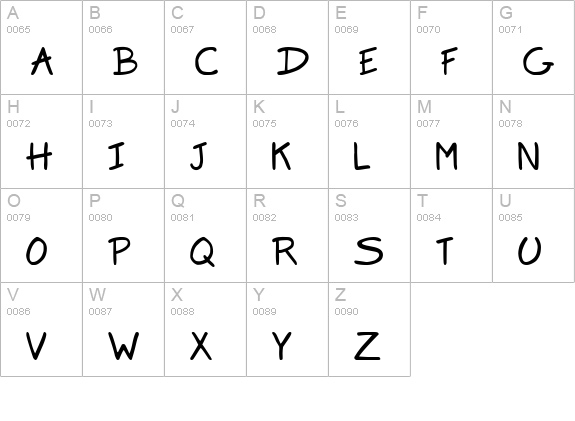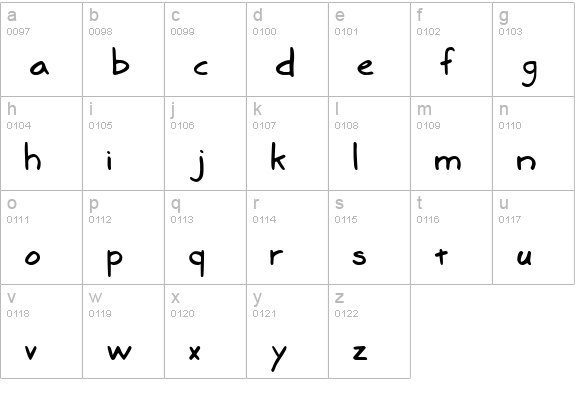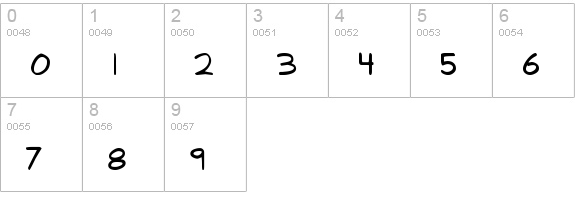
Marker SD Font Details
Marker SD is a unique and eye-catching font that adds a touch of creativity to any design project. With its bold and distinct strokes, this font is perfect for creating attention-grabbing titles, headlines, and logos. Whether you're designing a poster, a website, or even a T-shirt, Marker SD will make your text stand out and leave a lasting impression. What makes Marker SD even more appealing is the fact that it is completely free. That's right, you can freely download this font at FontsMarket.com, making it accessible to everyone, regardless of budget or design experience. This means that you can bring your creative ideas to life without any limitations or constraints. The versatility of Marker SD is another reason why it is a must-have font for any designer. It can be used in a variety of design projects, from playful and fun designs to more serious and professional ones. Its hand-drawn aesthetic adds a personal and authentic touch to your work, making it feel unique and one-of-a-kind. Not only does Marker SD offer a visually appealing design, but it also provides excellent legibility. Its clear and well-defined letters ensure that your message is easily readable, even from a distance. This makes it a great choice for signage, banners, and any other design that requires readability and impact. So, if you're looking for a free font that combines creativity, versatility, and legibility, Marker SD is the perfect choice for you. Download it today at FontsMarket.com and let your imagination run wild. With Marker SD, your designs will leave a lasting impression on your audience and make a statement that is uniquely yours.